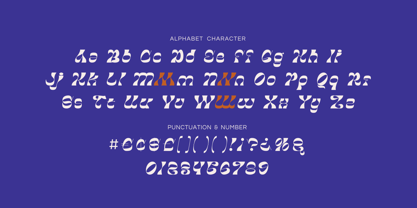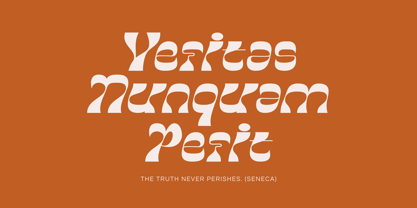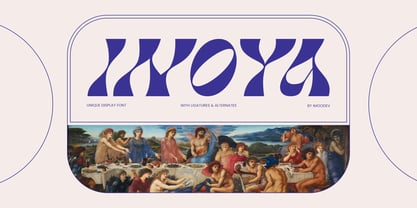
Inoya
by Imoodev
The Inoya Font Family was designed by Aulia Savira Putri and published by Imoodev. Inoya contains 1 styles. More about this family
INOYA is a unique and expressive display typeface that utilizes use negative space almost sculpturally, with swerving strokes and tapering forms that create motion even while static. This font blends elements of Baroque and Psychedelia with a touch of Y2K futurism, resulting in a modern and visually impactful impression, making it suitable for creative branding, editorial design, fashion labels (especially avant-garde or streetwear), art galleries, indie cosmetics or perfume packaging, and distinctive headline applications.
Designers: Aulia Savira Putri
Foundry: Imoodev
Inoya
About Imoodev
Imoodev is a digital type foundry and creative studio specializing in the strategic development of custom typography and visual identity systems. Evolving from our legacy as Pandastock, we've redefined our focus to deliver advanced typographic solutions that empower global brands to communicate with precision, clarity, and distinction. We craft letterforms into enduring brand assets, from bespoke logotypes to complete type families, supported by flexible licensing frameworks and dedicated creative consultation. We believe typography is not just design, but infrastructure: a scalable foundation for cohesive, high-impact brand expression across every touchpoint.